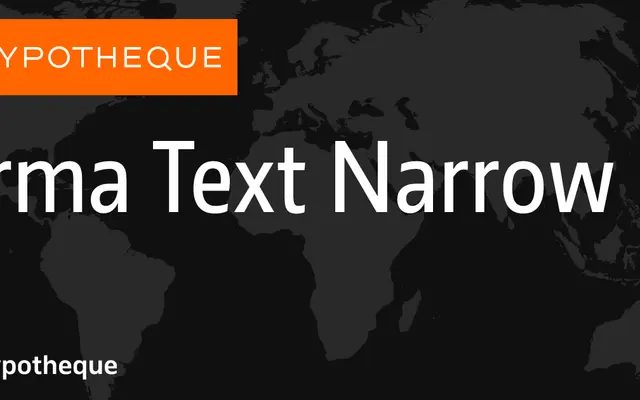
Irma Text Narrow
The condensed cut of Typotheque's expansive Irma system, offering nine weights with italics and a variable font for space-efficient text setting.
Irma Text Narrow sits within a large, methodically structured type system that spans display and text sizes, upright and slab terminals, and a round variant, giving designers a coherent toolkit across very different typographic registers. The narrow width provides nine weights from Thin to Black, each paired with an italic, and the family is also available as a variable font. Its condensed proportions make it well suited to editorial layouts where column width is restricted without sacrificing typographic warmth.
Irma Text Narrow is a condensed humanist sans-serif with upright and italic cuts across nine weights, forming part of a large system that includes slab, round and display variants, pointing to a humanist structural basis with systematic versatility.